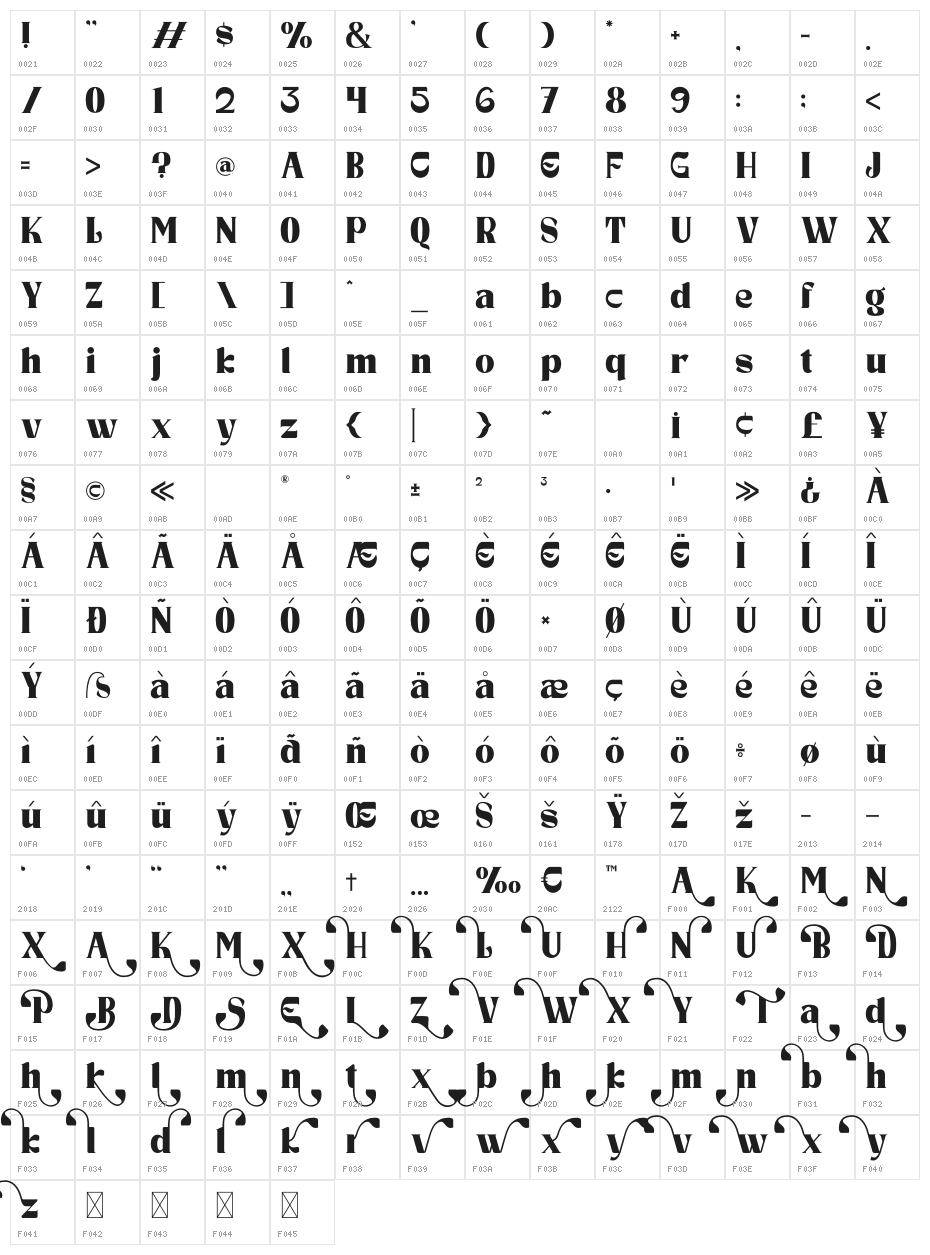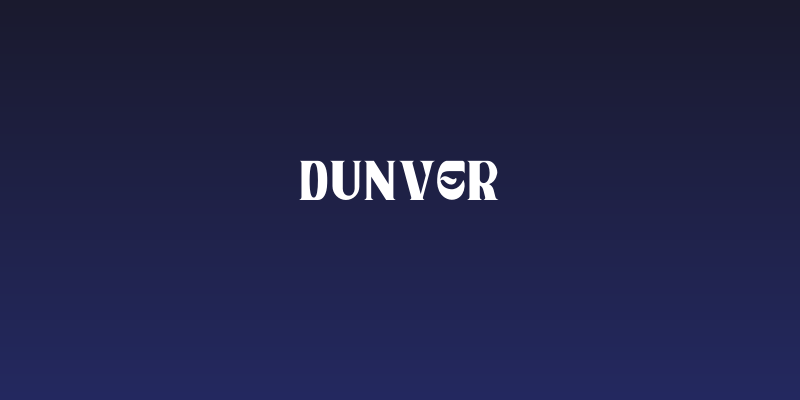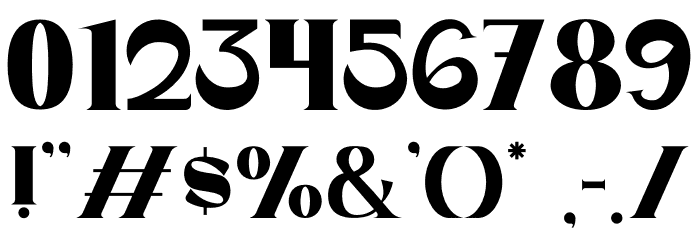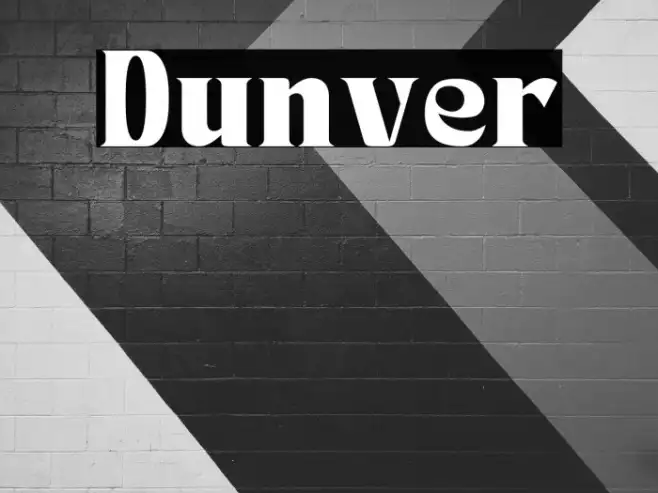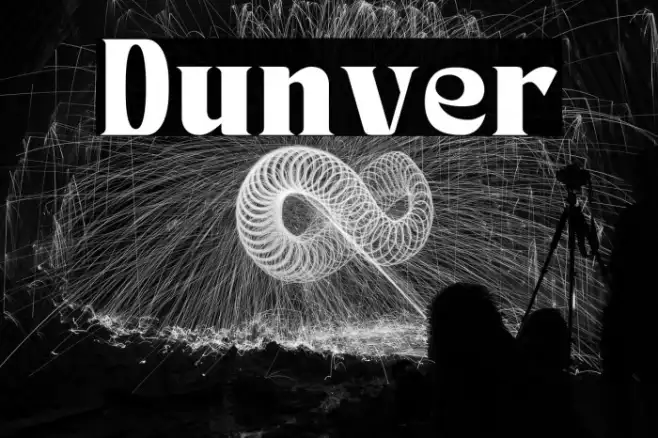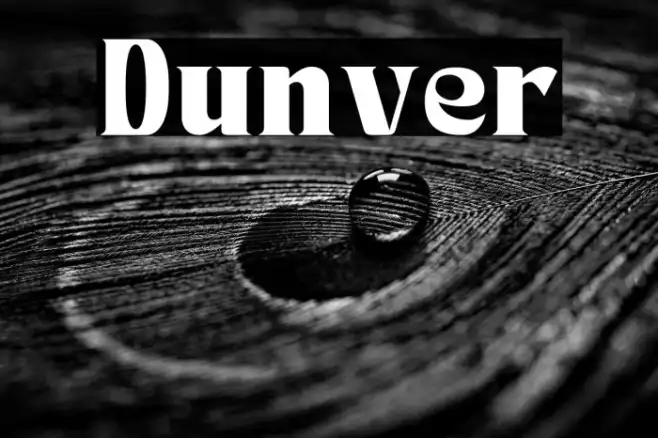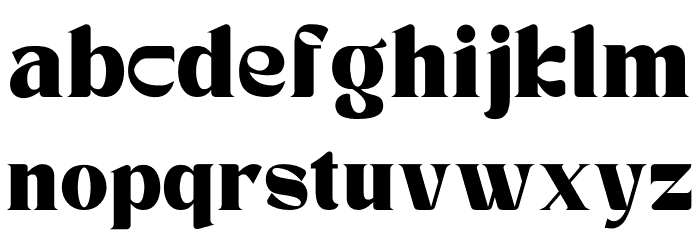
Dunver Font
Dunver Description
This font features a bold and dramatic style with high contrast between thick and thin strokes. The uppercase letters exhibit a unique flair, with certain characters having distinctive curves and angles that add a sense of movement and energy. The lowercase letters maintain a consistent weight, complementing the uppercase with a slightly softer touch. The numerals are robust and clear, ensuring readability while maintaining the font's overall aesthetic. Special characters are creatively designed, adding to the font's decorative appeal. This font is ideal for making a strong visual impact.
| Proposed Projects | Ideal for branding, poster design, headlines, and any project requiring a bold visual statement. |